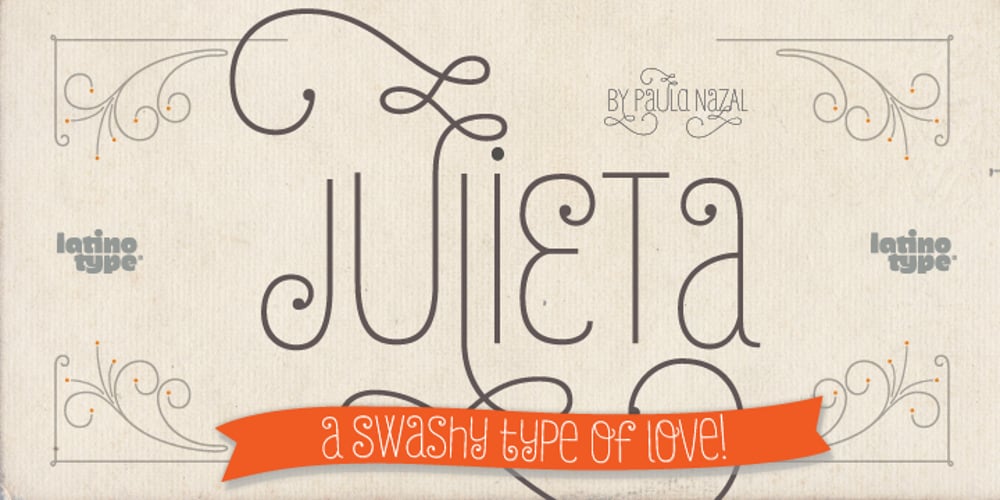
Julieta Font Family was designed by Paula Nazal Selaive and published by Latinotype. Julieta contains 9 styles and family package options. Julieta is a perfect couple of Romeo , they are a condensed, unicase family full of swashy love. Inspired by romanticism, Julieta is a charming and versatile typeface. By alternating uppercase and lowercase, and mixing them with alternate characters, ligatures, swashes and endings, you obtain endless possibilities of composition, with 810 glyphs available in the Pro font. In case you don’t need all these alternatives, there is also an Essential version consisting of 247 characters. In addition, Julieta has an affordable set of ornaments, connectors and catchwords to complete this attractive display system. Designed by Paula Nazal Selaive.